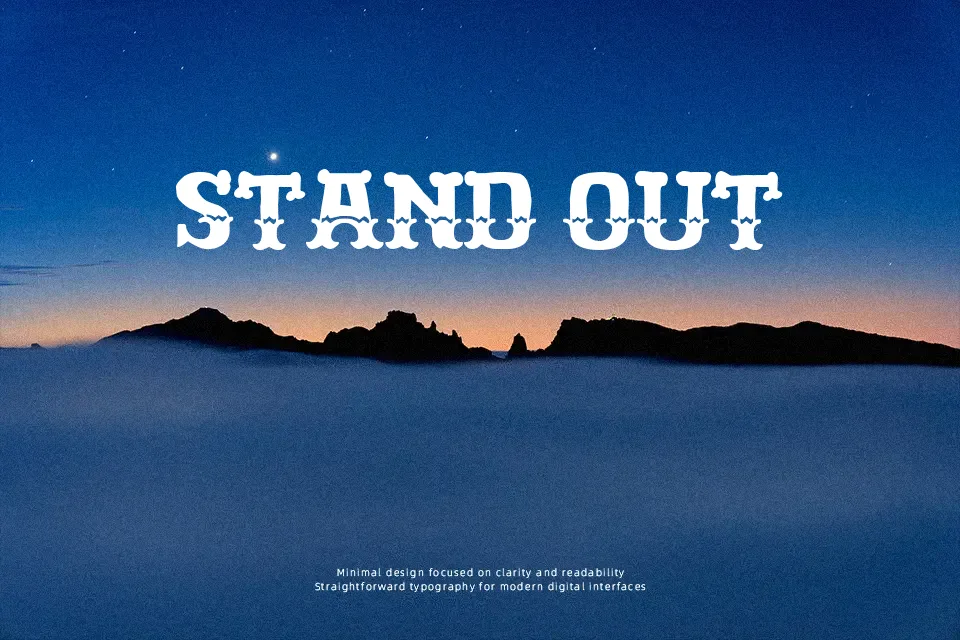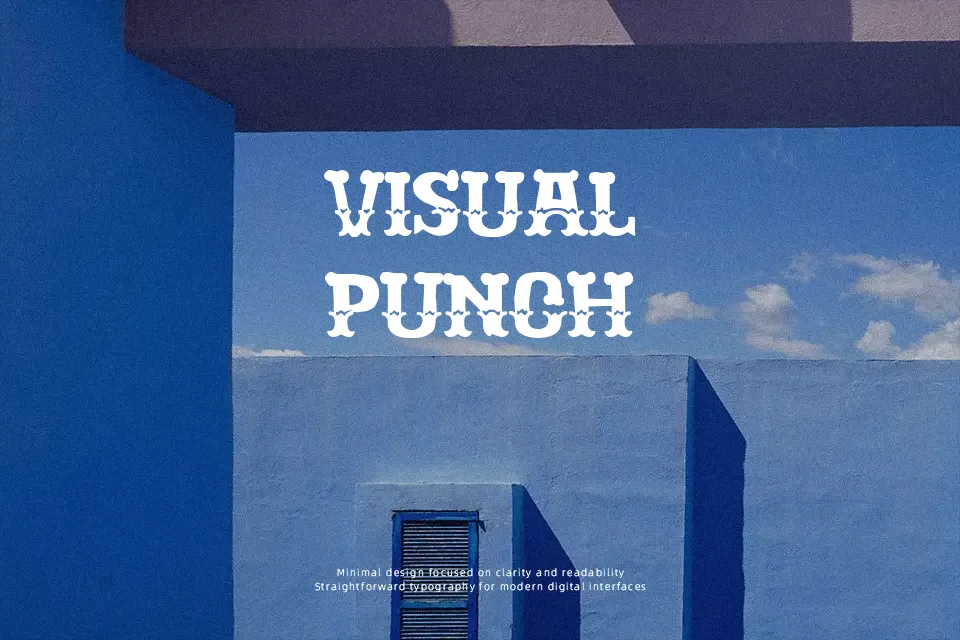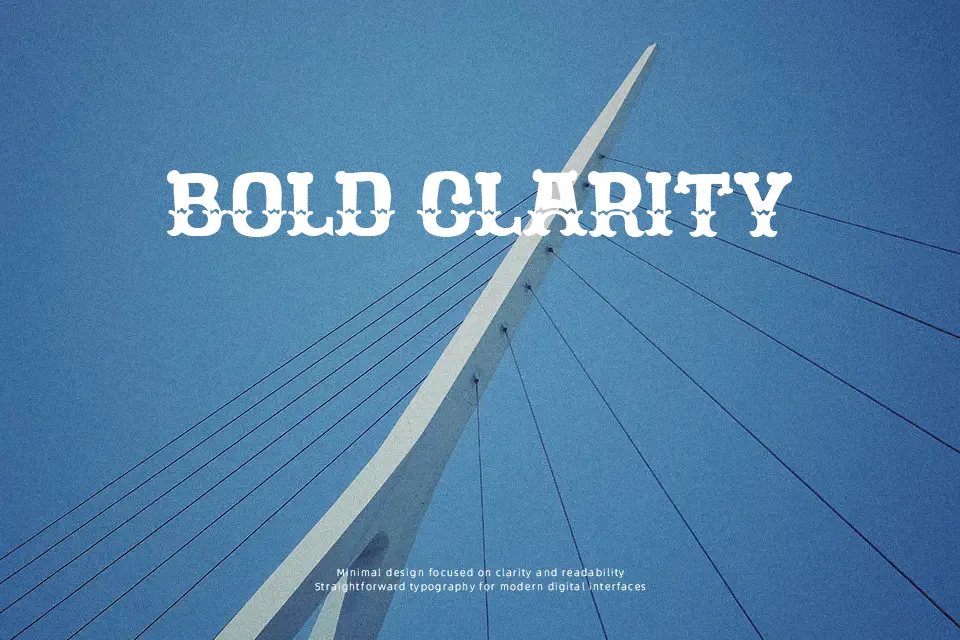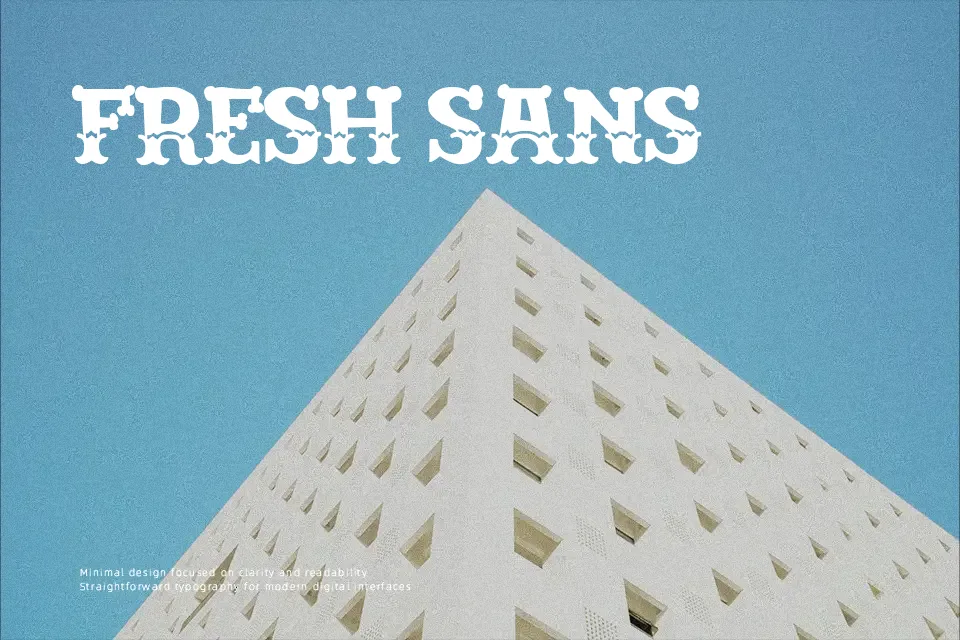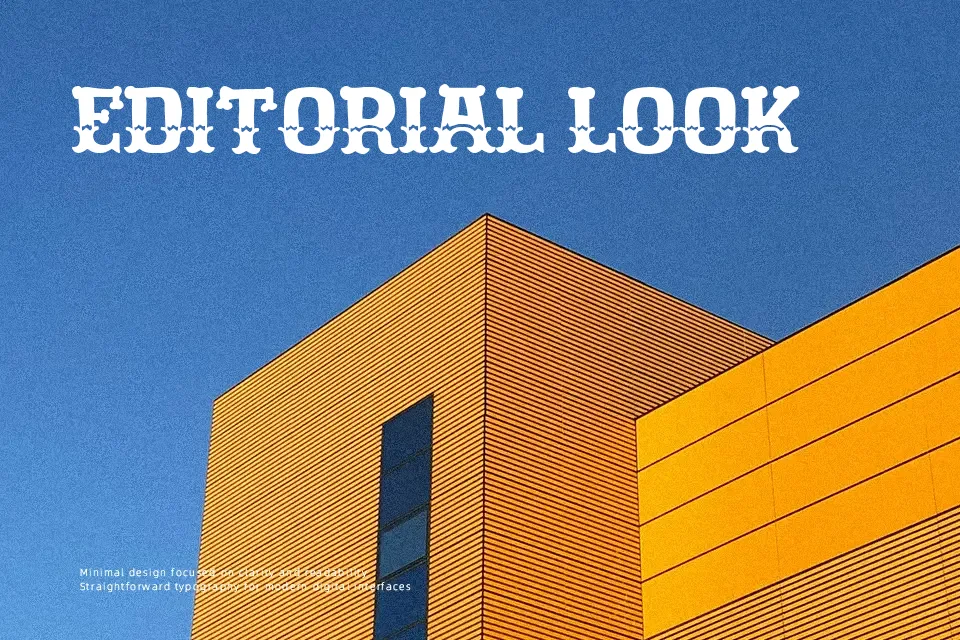
The Last Circus Font
The Last Circus Font establishes immediate visual drama through heavy display letterforms characterized by pronounced contrast and decorative flair. Dense vertical strokes pair with idiosyncratic curves and tight spacing, creating an energetic rhythm across larger headlines. Character proportions favor a bold presence, ensuring individual glyphs remain legible when set at expansive scales. However, the compact spacing and heavy ornamental structure reduce reading comfort in continuous text blocks. Small captions also lose letterform definition rapidly. This typeface performs best when displayed at larger sizes where its theatrical details can be appreciated without cluttering surrounding layout elements.
Best For: vintage carnival posters, themed festival banners, retro apparel graphics, entertainment logo designs
Not Ideal For: long paragraph text, mobile app body copy, dense editorial layouts, technical documentation